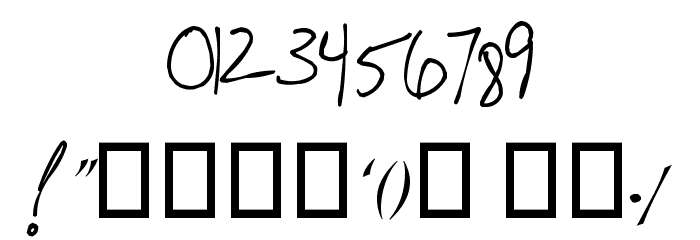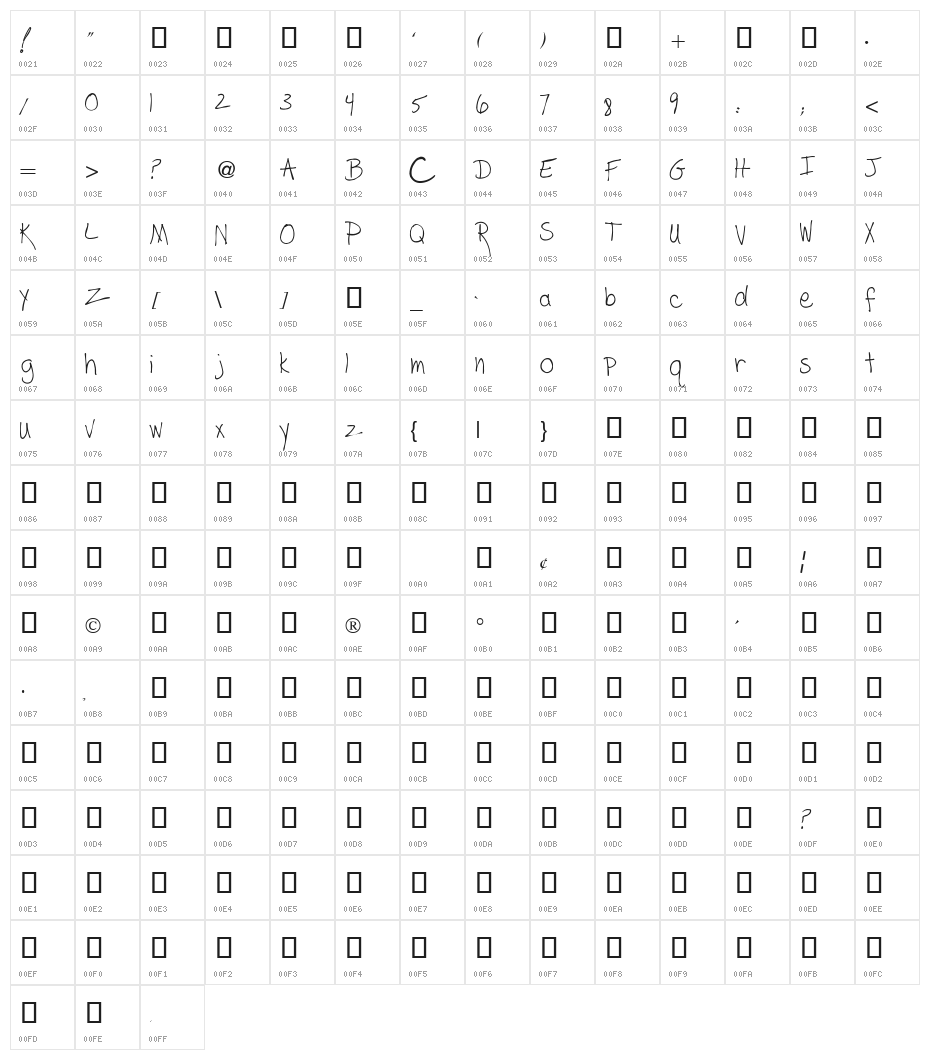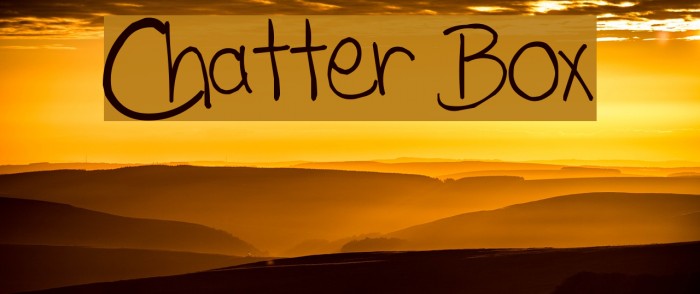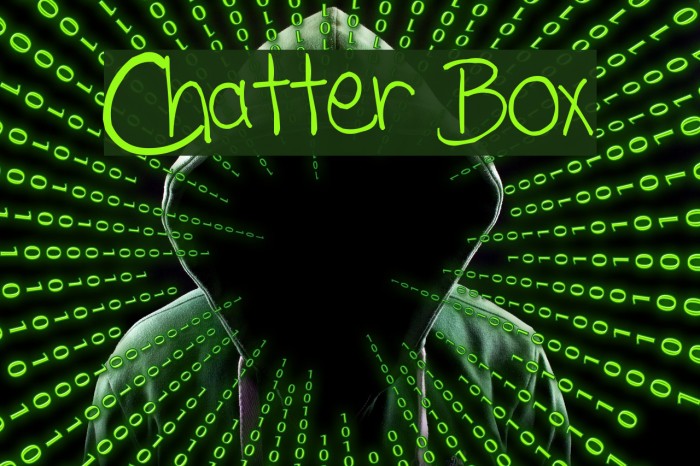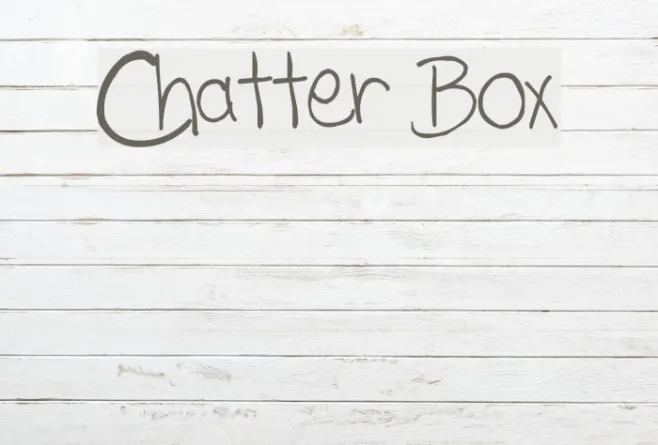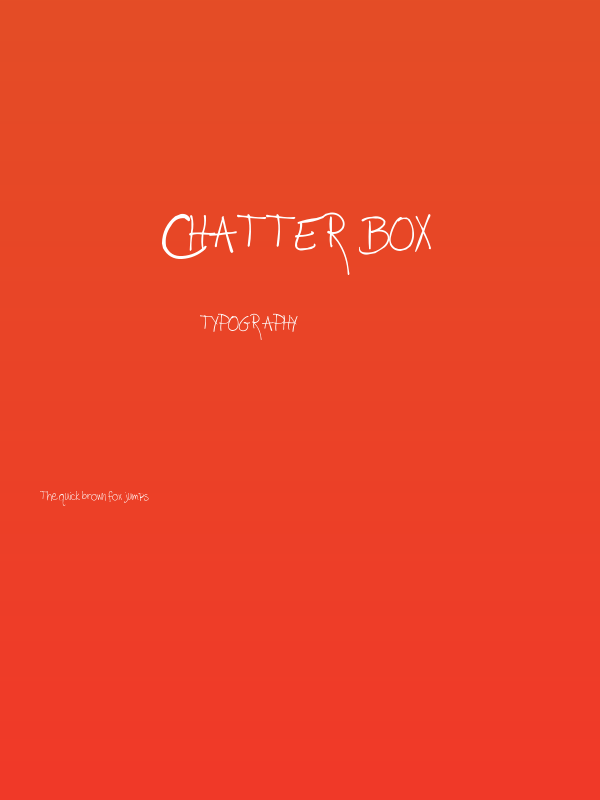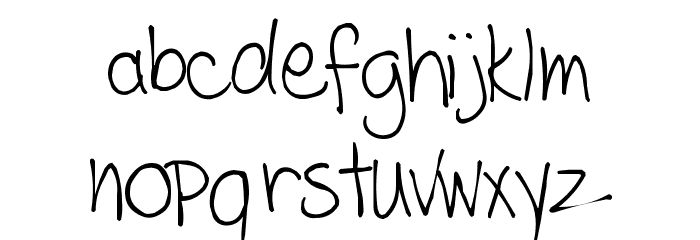
Chatter Box Font
Chatter Box Description
This font features a playful, handwritten style with a casual and informal appearance. The letters are slightly irregular, giving it a whimsical and friendly feel. The strokes are uneven, with a mix of thick and thin lines that add to its dynamic character. The uppercase letters are bold and prominent, while the lowercase letters maintain a consistent flow. Numbers and special characters are included, matching the overall quirky aesthetic. This font is ideal for projects that require a personal touch or a fun, approachable vibe.
Overall StyleCasual
Use CaseHeadlines, Informal text, Creative projects
Proposed ProjectsGreat for children's books, greeting cards, playful branding, and casual invitations.